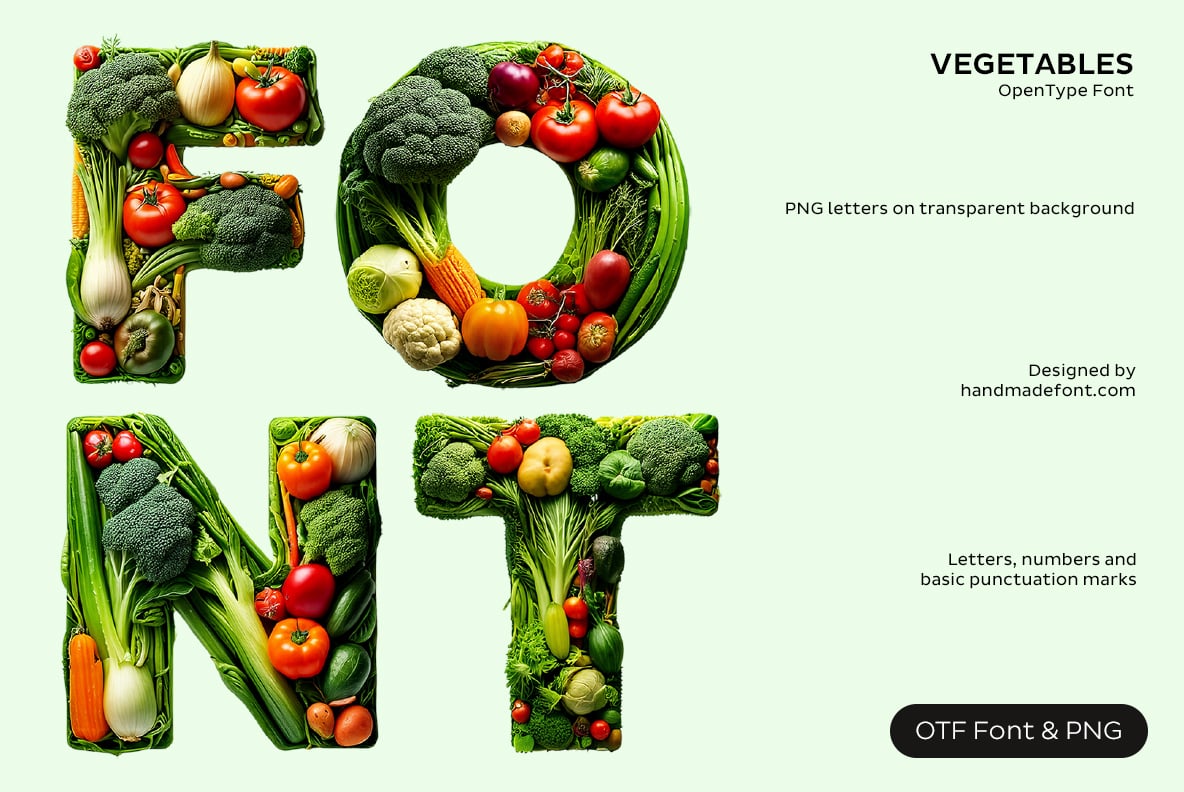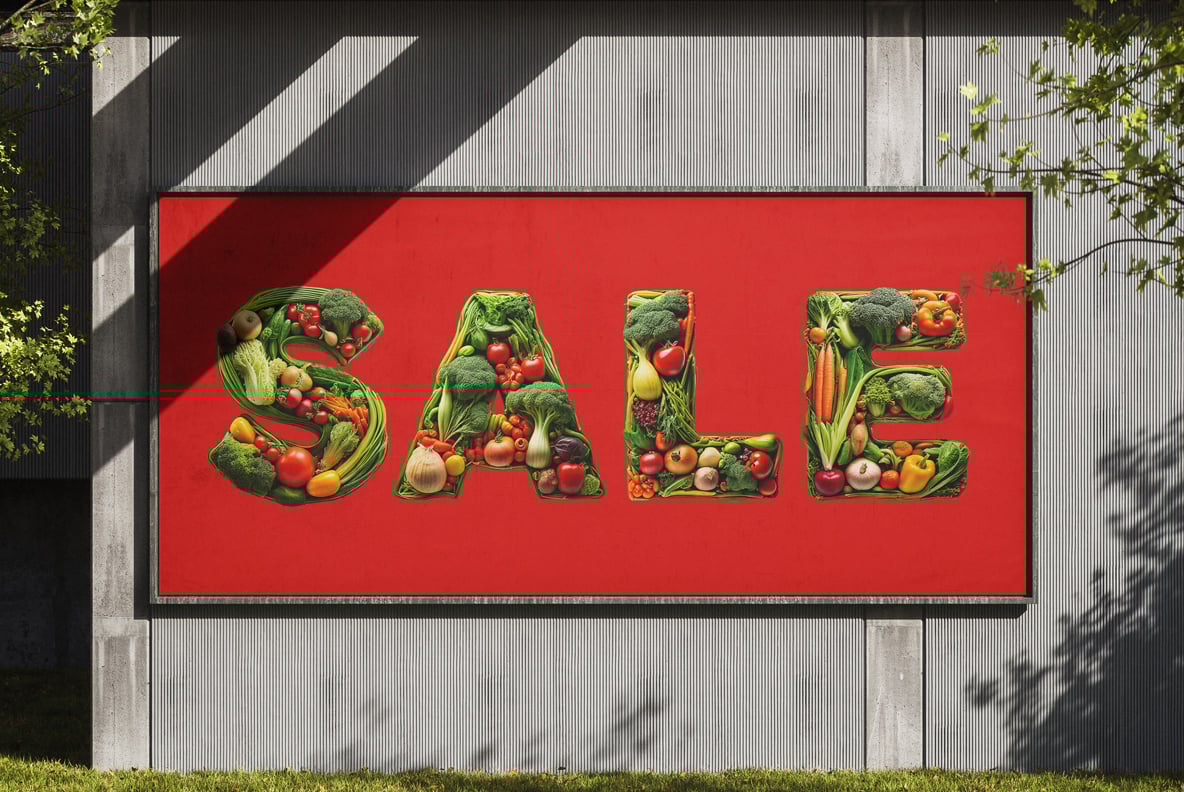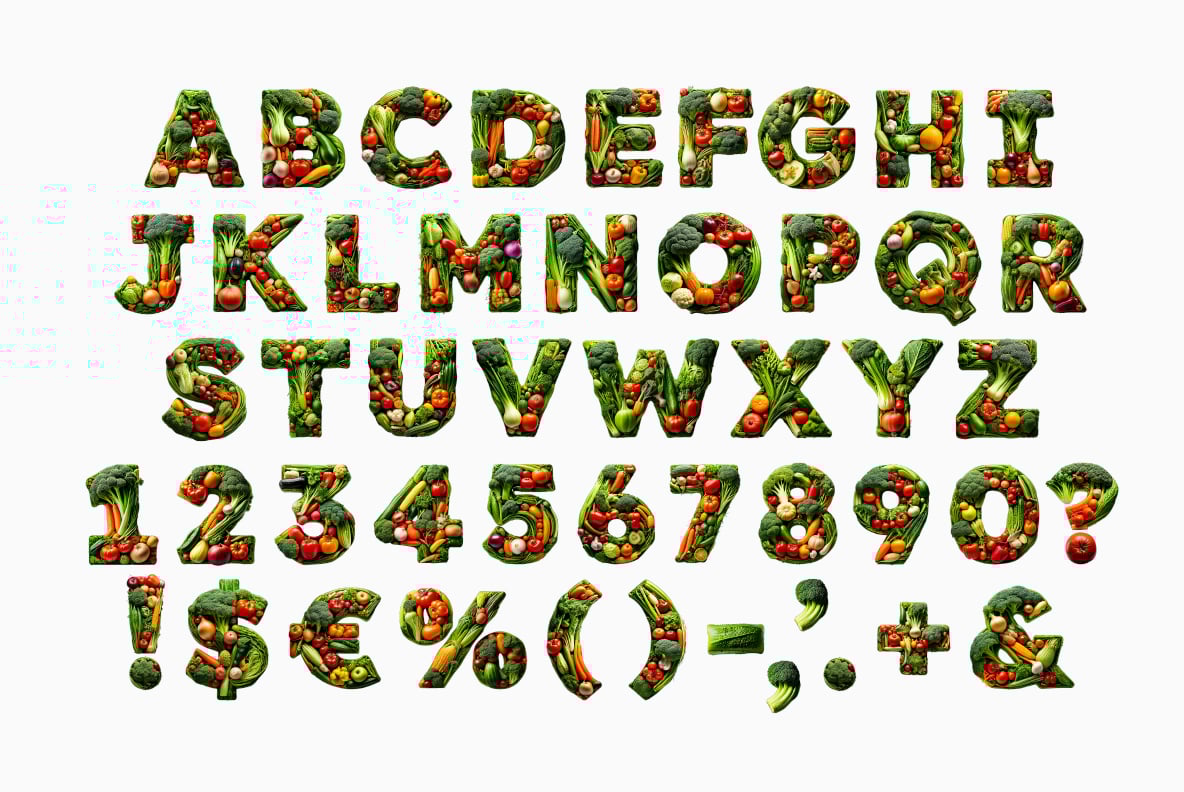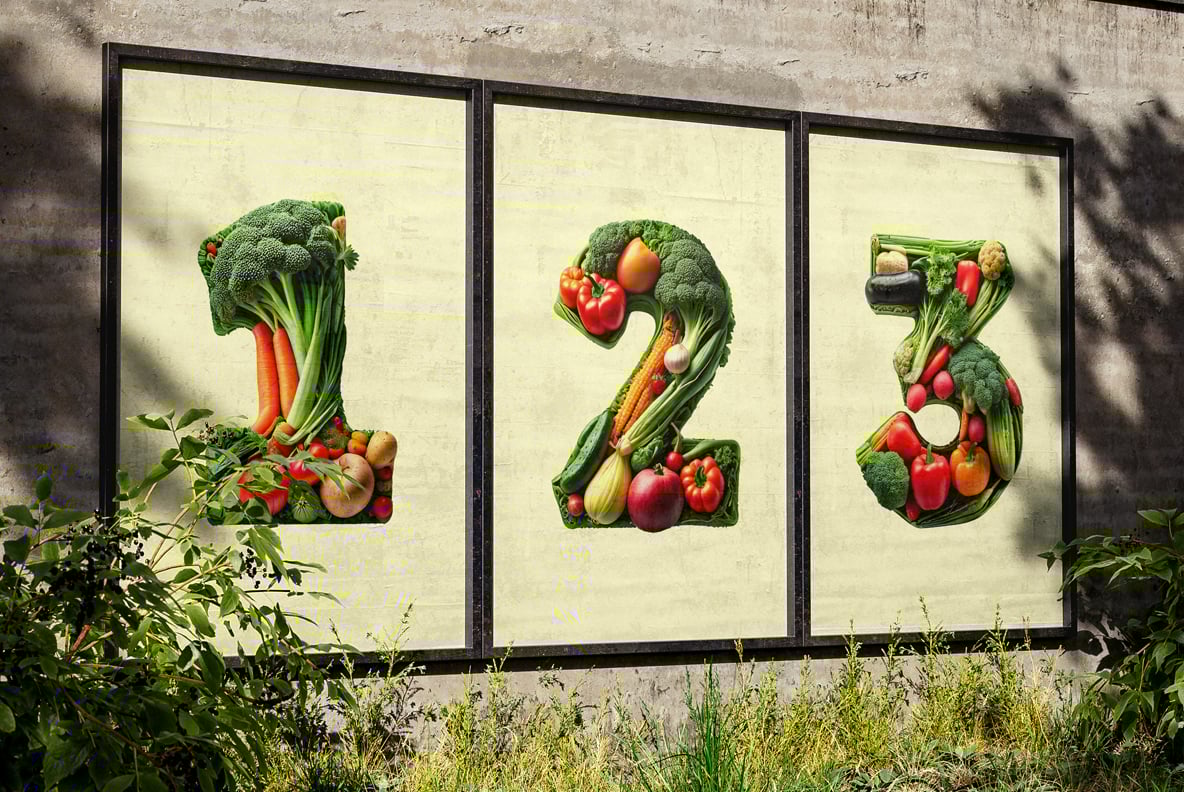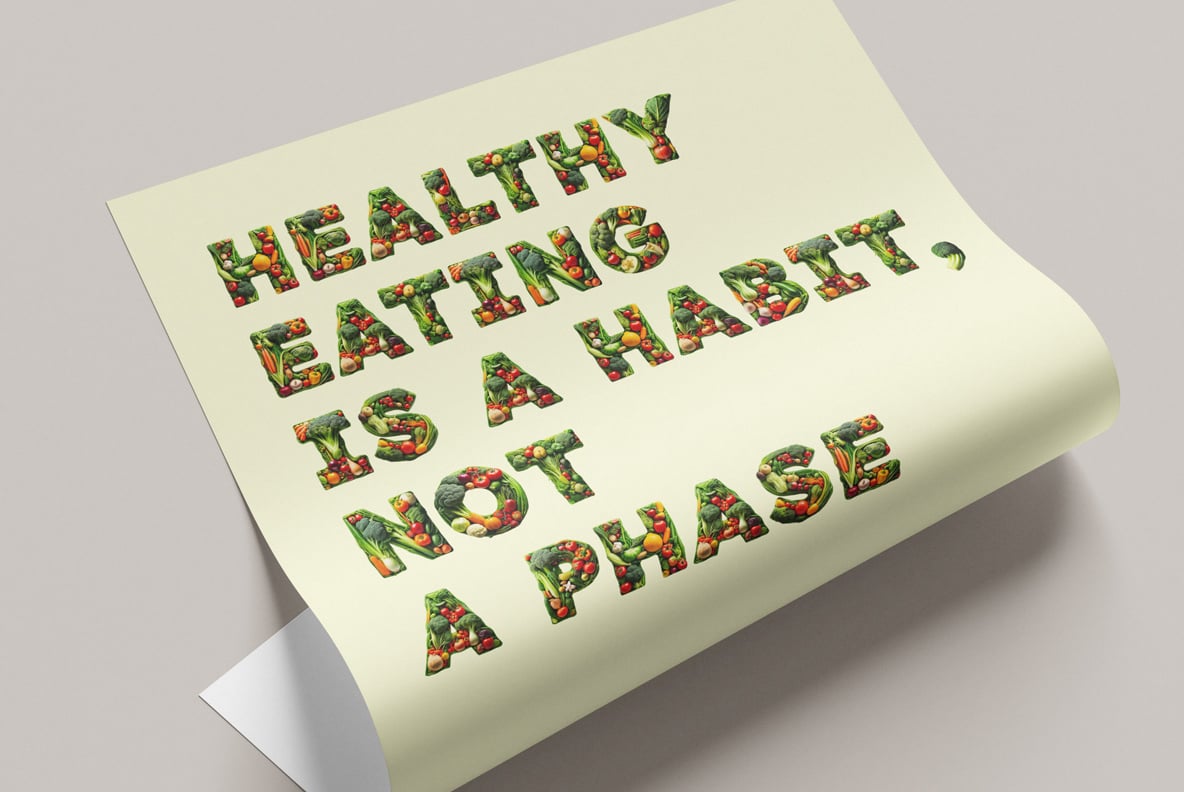
Vegetables Font
Vegetables Font is a fresh, vibrant typeface made entirely of lush, colorful vegetables, bringing organic life to every letter. Each character is carefully crafted from an assortment of greens, tomatoes, peppers, broccoli, carrots, onions, and other farm-fresh produce, forming a rich, textural composition that feels both playful and natural. Perfect for eco-friendly brands, healthy food campaigns, farm-to-table restaurants, or any project aiming to communicate freshness and sustainability, Vegetables Font turns typography into a visual feast. It’s not just a font — it’s a celebration of nature, health, and creativity, inviting viewers to savor every letter like a wholesome meal.